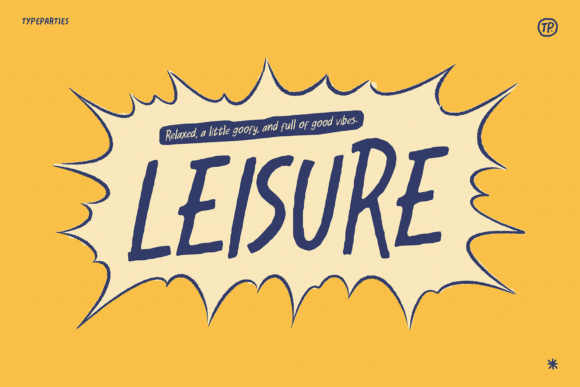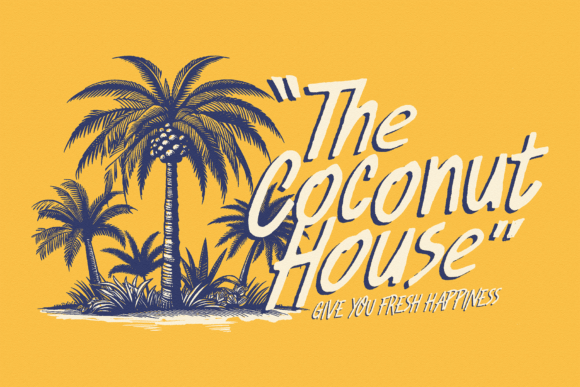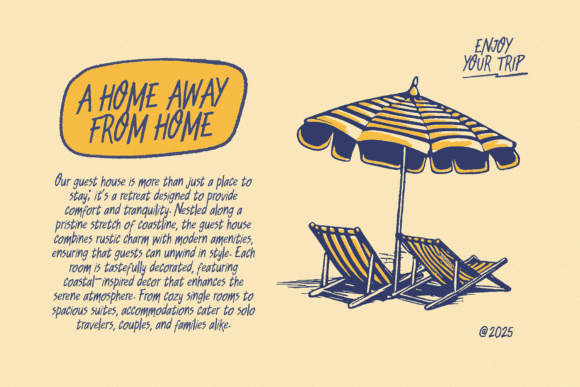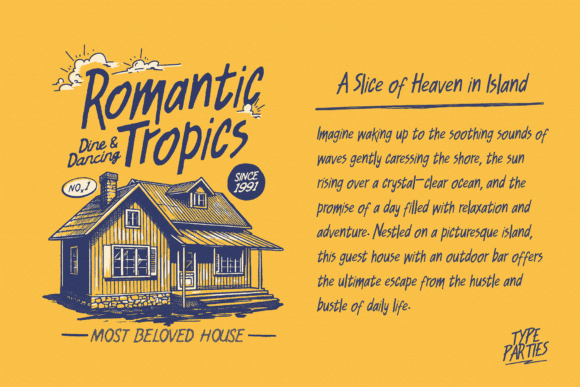
Leisure Font
About the Leisure Font
Let us introduce you to Leisure Font, where timeless design meets modern craftsmanship. This font is like your favorite weekend buddy—relaxed, a little goofy, and full of good vibes. The tall, playful letters lean just enough to say “I’m chill, but still got style.” Great for sunny posters, beachy invites, or anything that says “let’s not take life too seriously.” It’s handwritten, a bit quirky, and totally charming—just like doodles on a lazy Sunday afternoon.
Leisure Font’s relaxed, informal style makes it ideal for projects needing a friendly, approachable feel. Think branding for cafes, small businesses with a playful ethos, or event invitations with a casual vibe. It excels in headlines, short slogans, and social media graphics. However, its informal nature makes it unsuitable for body text or applications requiring high readability, such as websites or long-form content.
Pairing Leisure Font with a clean sans-serif like Open Sans for body copy creates a balanced contrast. For a more sophisticated look, consider pairing it with a classic serif like Garamond for supporting text. A simple geometric sans-serif like Futura adds a modern touch without overwhelming Leisure Font’s inherent charm.
In short, Leisure Font embodies a carefree, light-hearted personality. Its quirky charm works best when highlighting key messages and creating a visually engaging, informal brand identity.
Leisure Font Usage Examples
Leisure Font Example